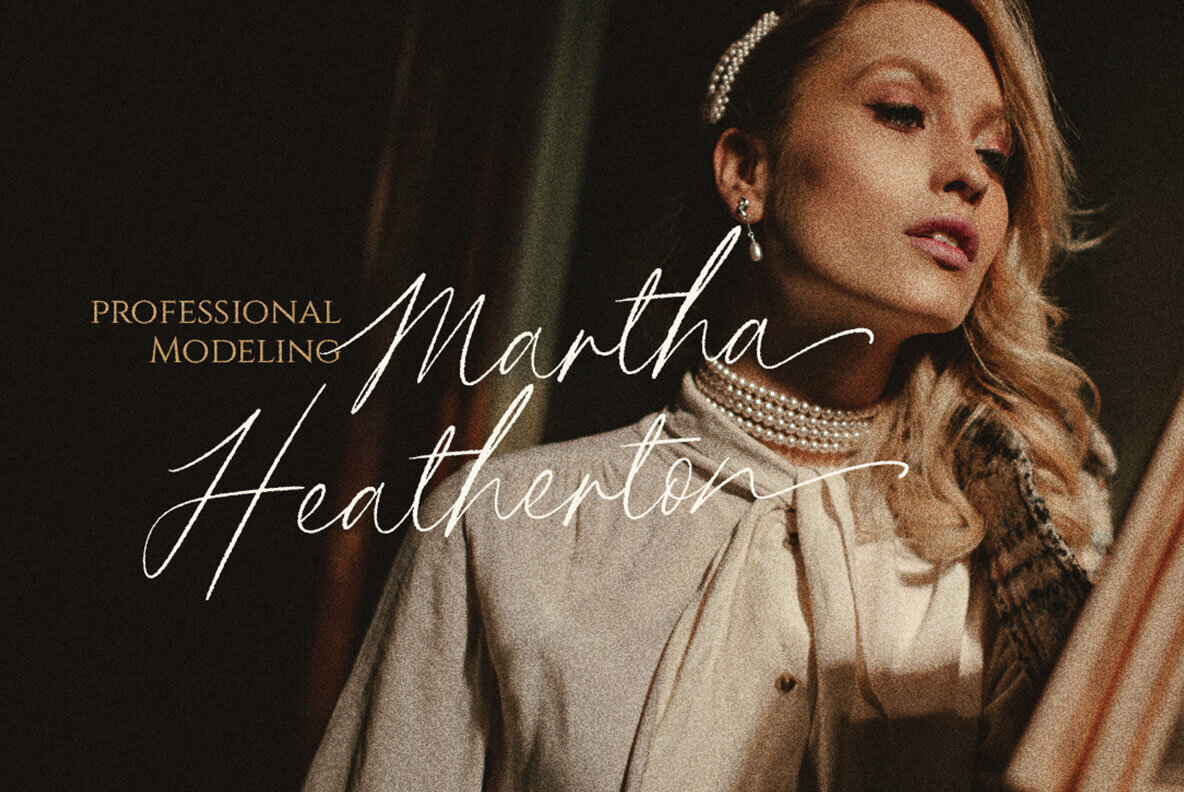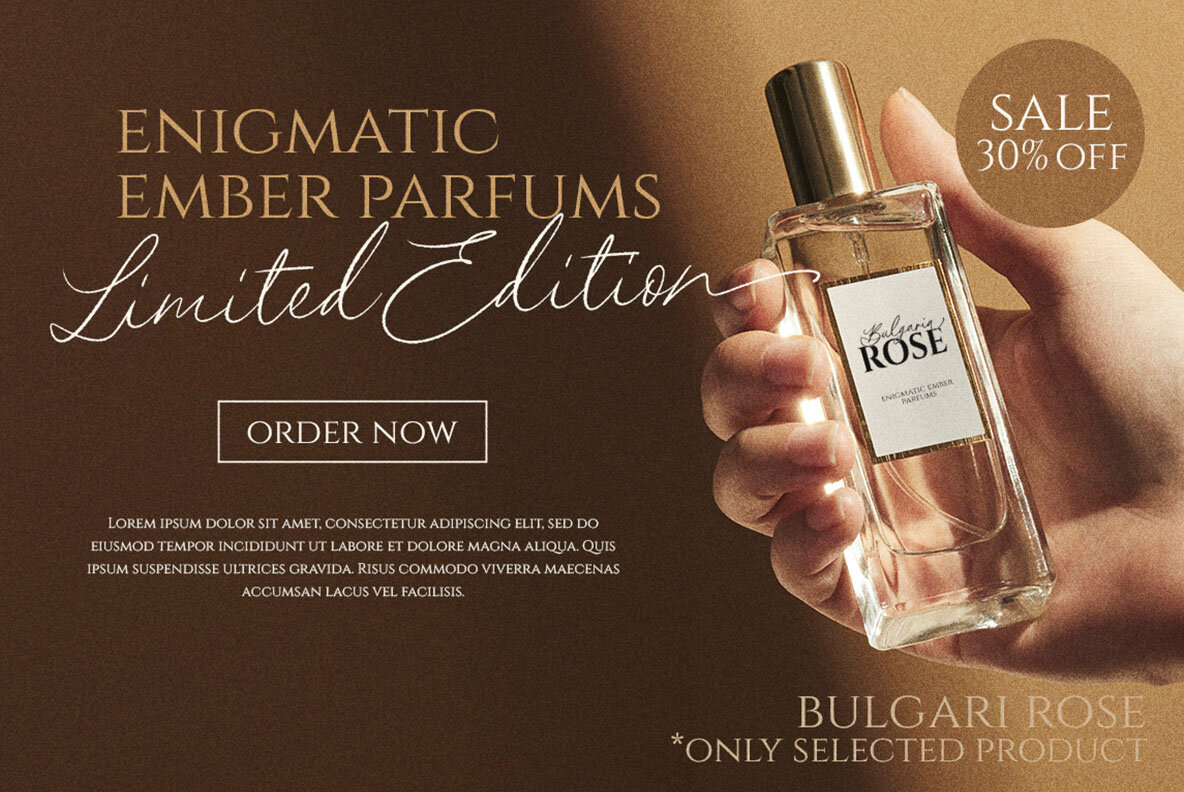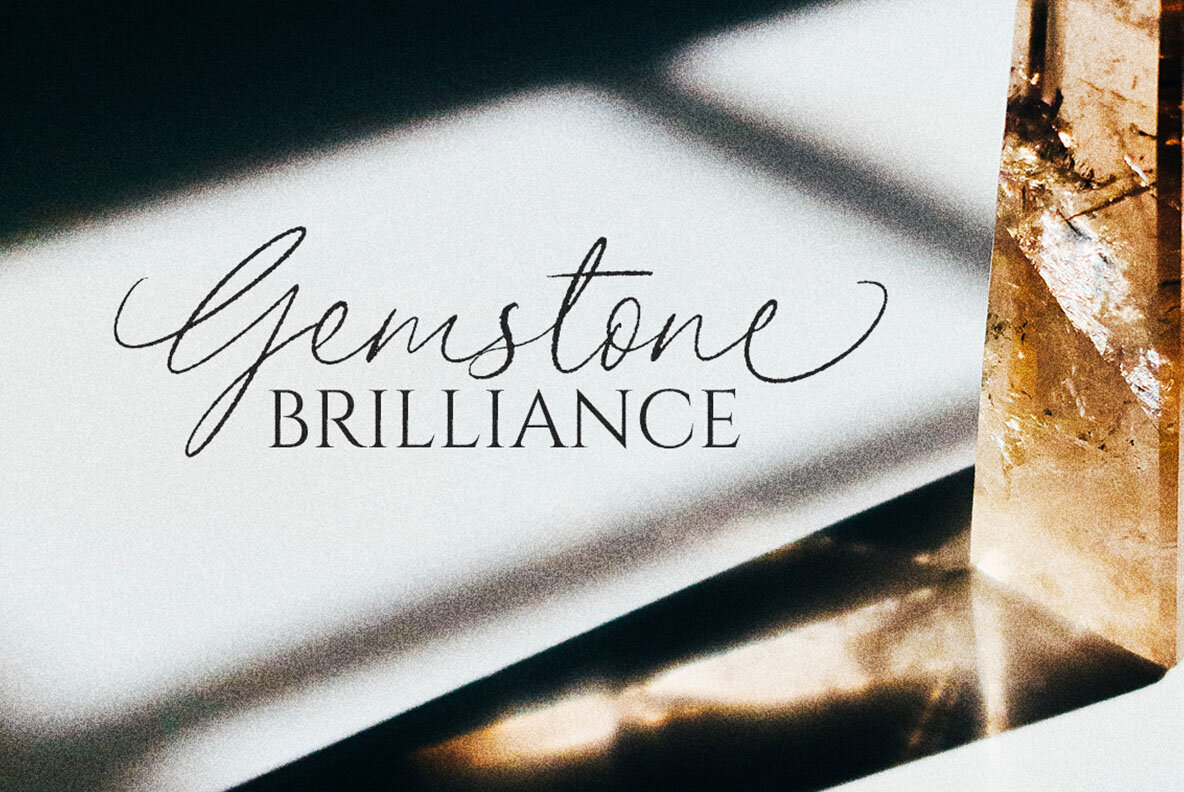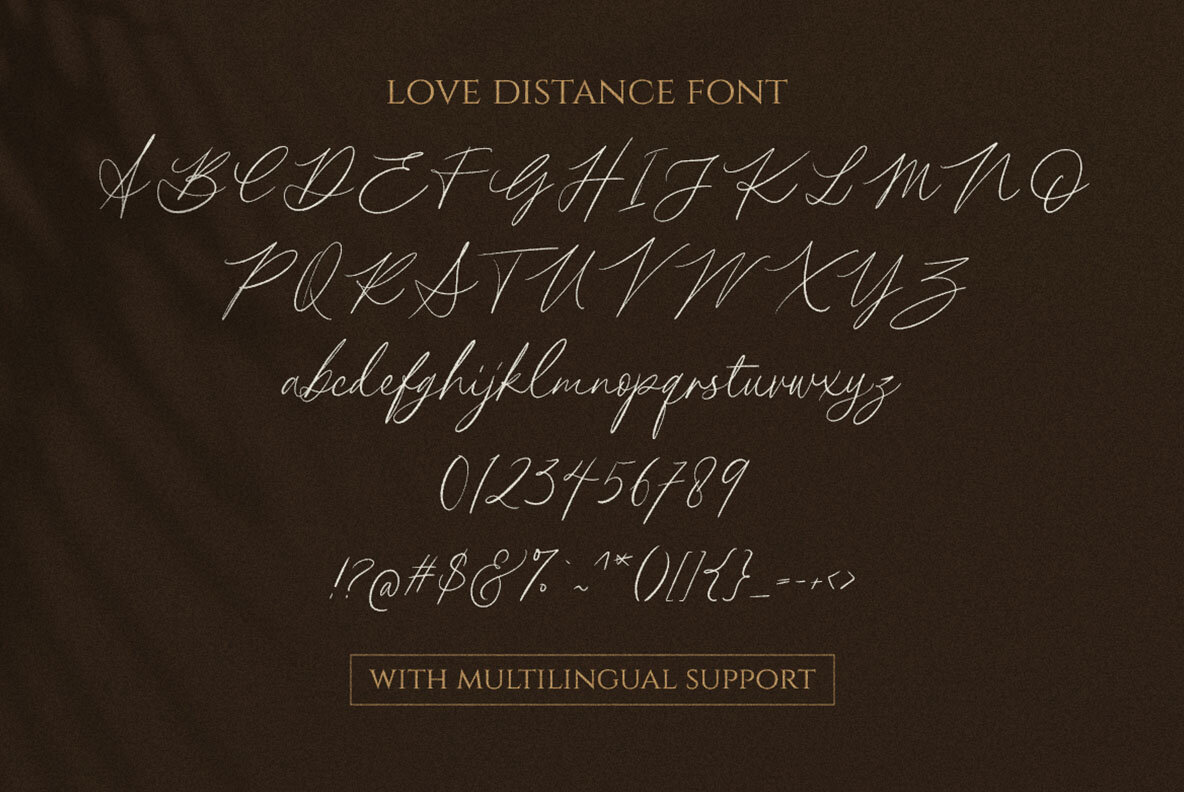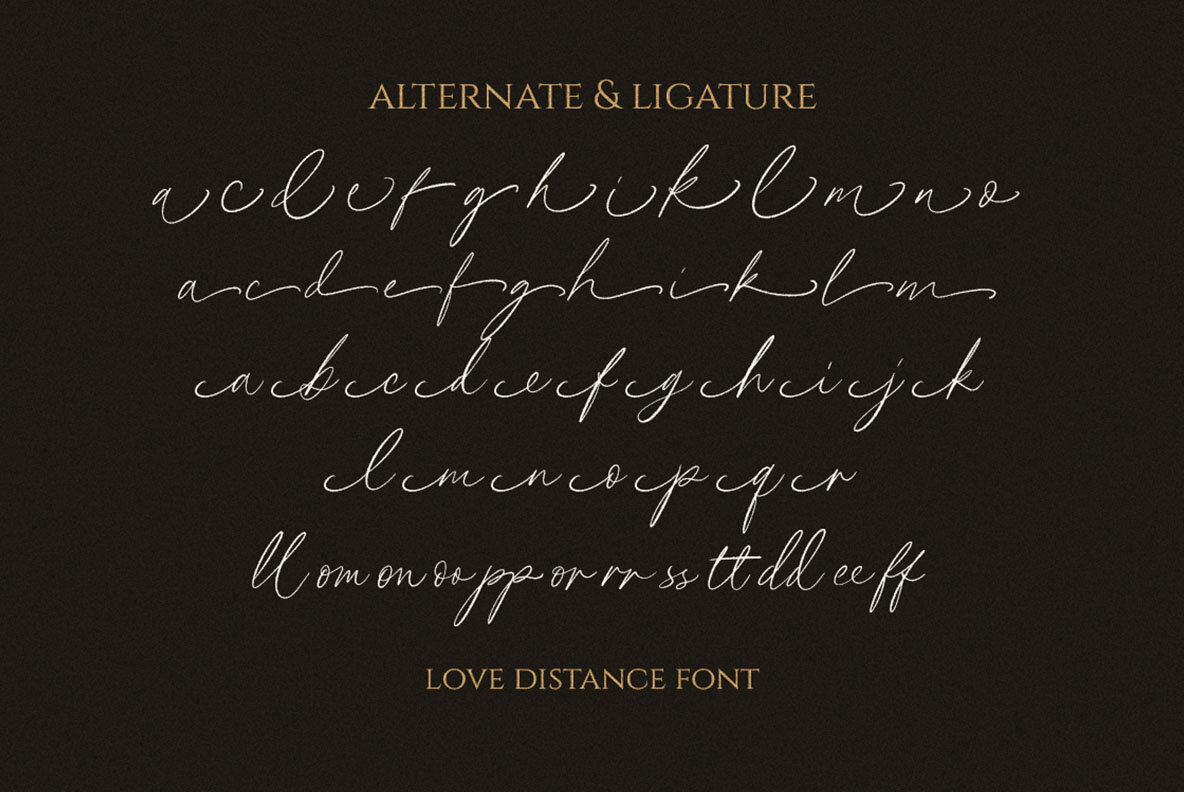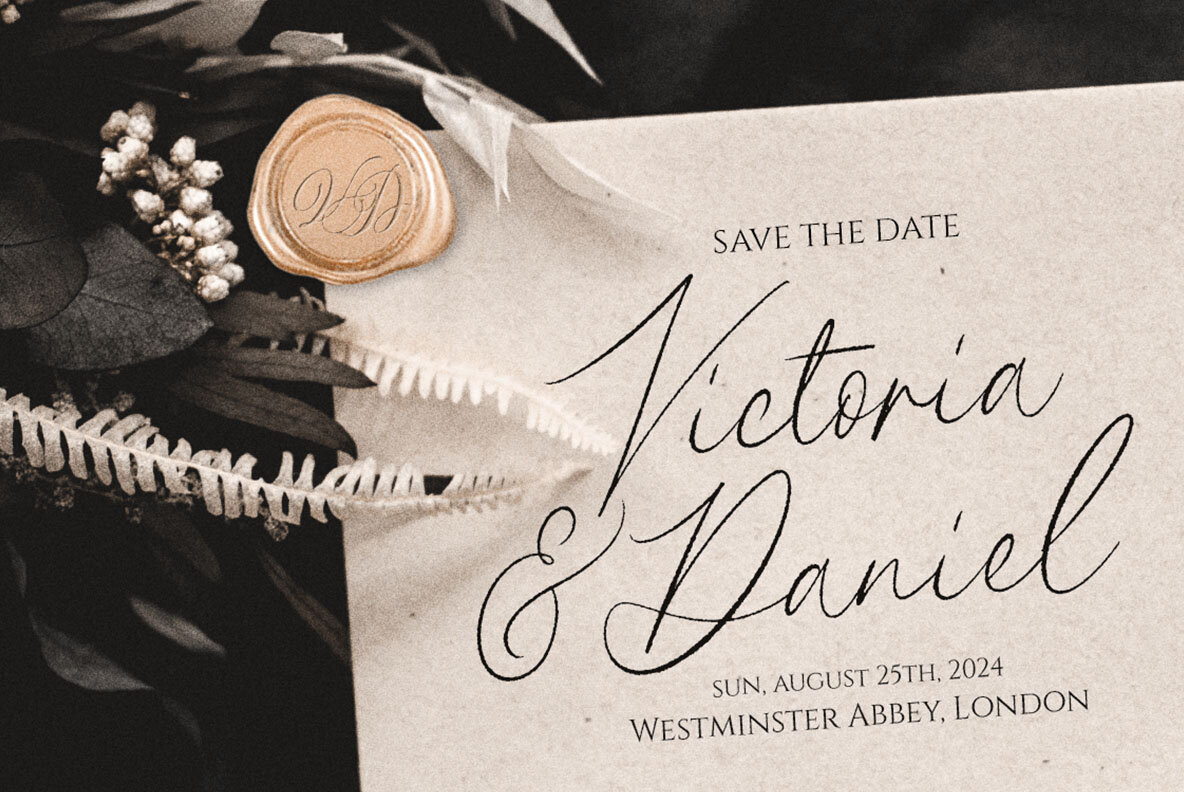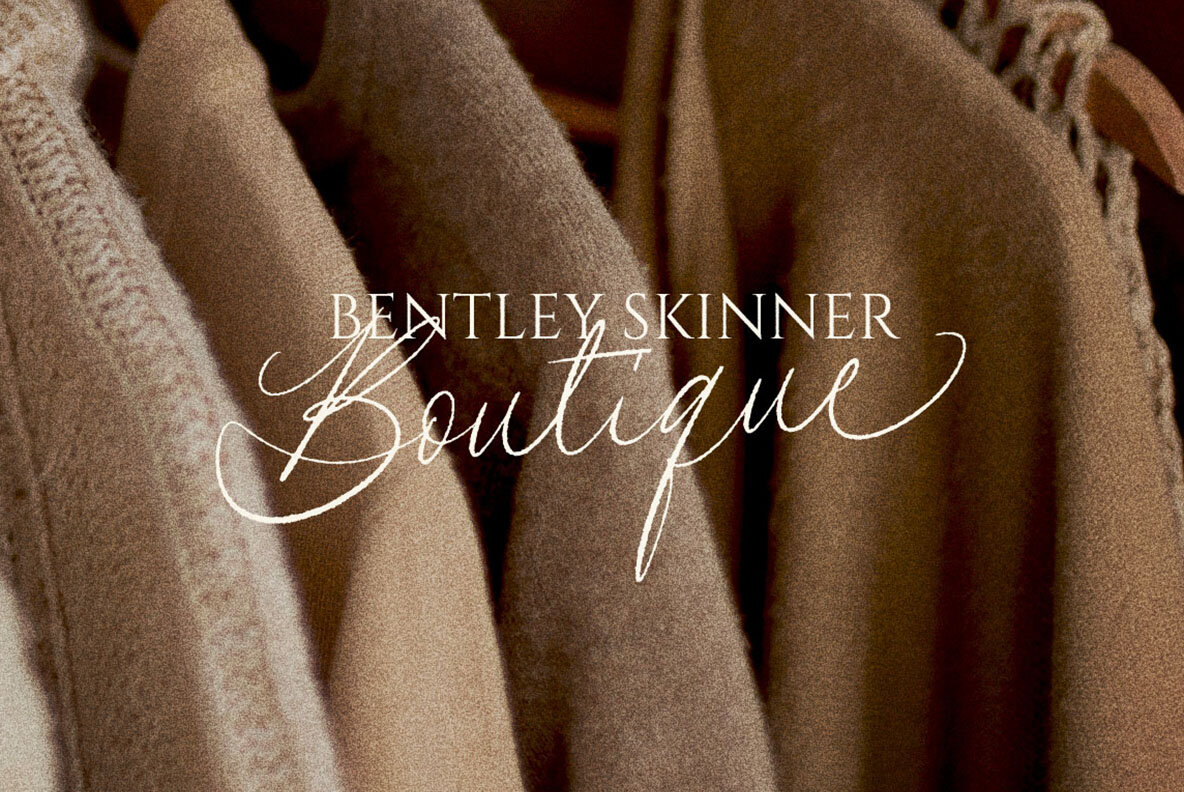
The Love Distance Font
Love Distance
The Love Distance is a beautifully crafted handwritten script font that exudes an organic style. Designed for versatility, it's ideal for logos and various formal applications such as invitations, labels, magazines, greeting and wedding cards, packaging, fashion, makeup, stationery, novels, and advertising. For optimal use, we recommend programs supporting OpenType features and Glyphs panels, like Adobe applications and Corel Draw, to access all Glyph variations. For instructions on using alternate characters or swashes, please refer to the tutorial at The Love Distance: Organic Handwritten Script